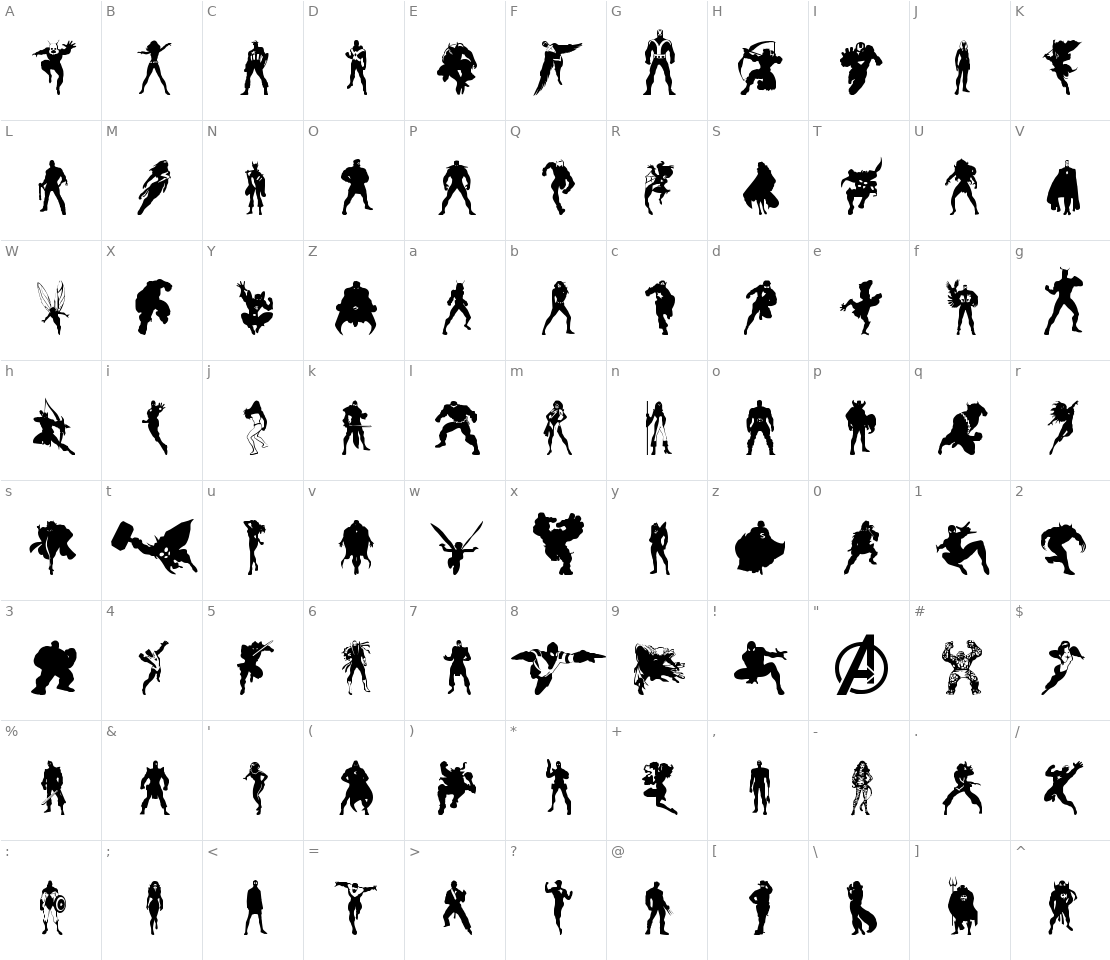
Heroes Assemble Dingbats
Heroes Assemble Dingbats is a symbol font from Iconian Fonts featuring silhouettes of superhero and action figures in dynamic poses. Each glyph reads like a comic book character mid-flight or mid-punch, making it useful for fan projects, comic layouts, invitations, or anywhere you need quick heroic iconography without drawing it yourself.